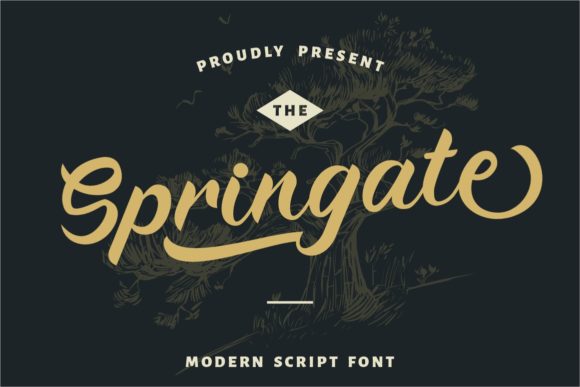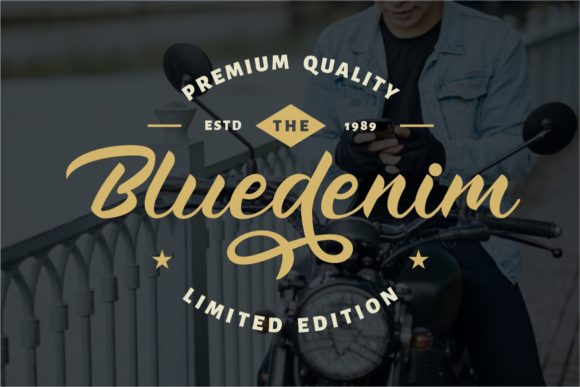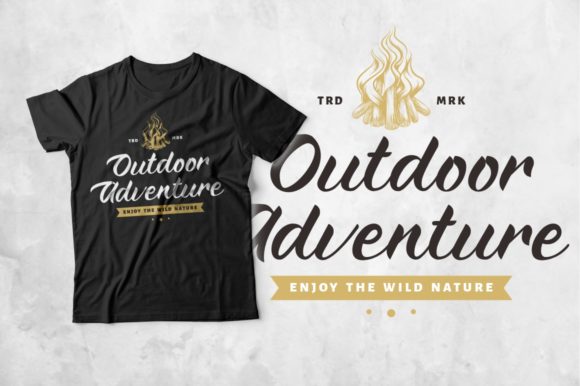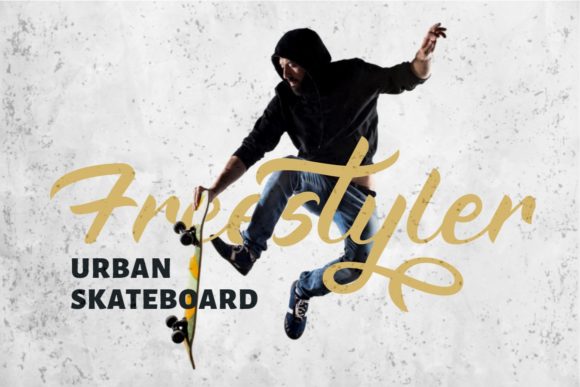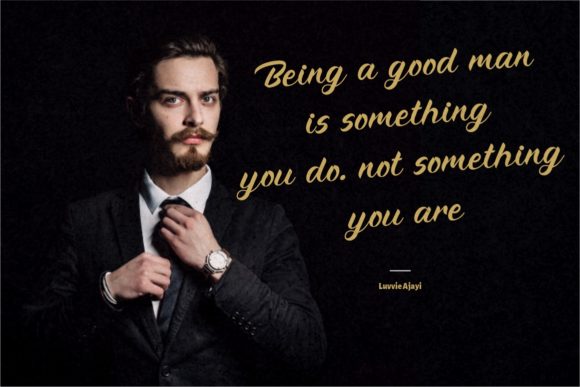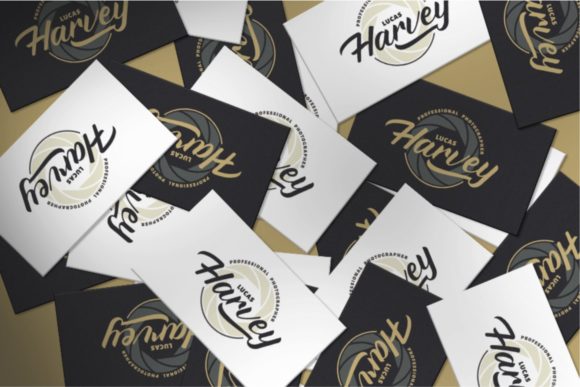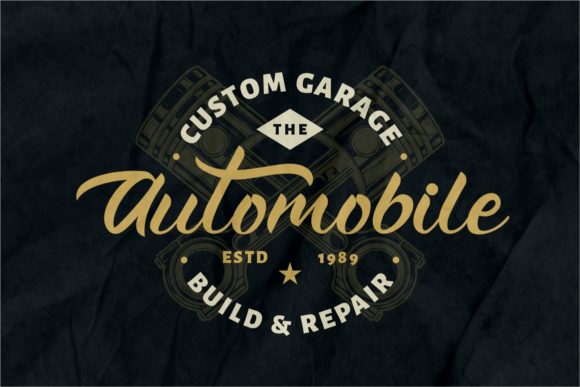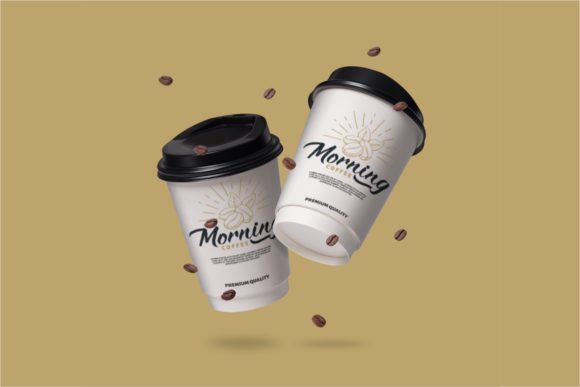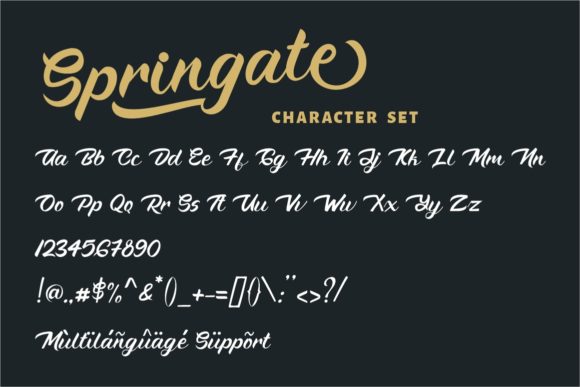
Springate Font
About Springate Font
Springate is a flowing handwritten font, described by an elegant touch, perfect for your favorite projects. Fall in love with its incredibly distinct and timeless style and use it to create spectacular designs!